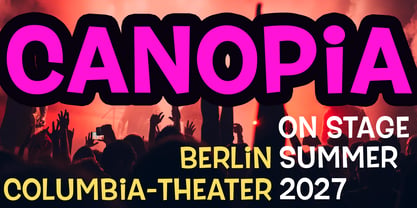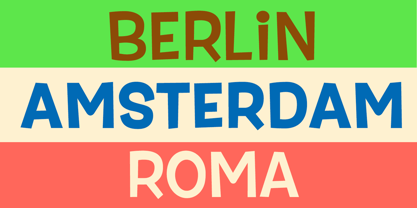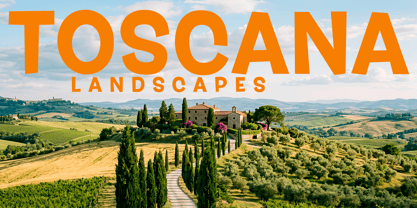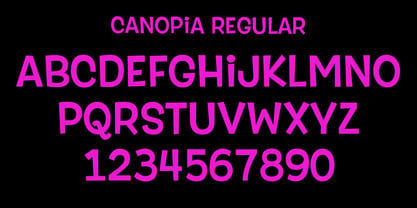
Canopia
The Canopia Font Family was designed by Wolfram Pleger and published by PleasureFonts. Canopia contains 2 styles and family package options.
Canopia is a hand-drawn, chunky font family with some grotesque retro sans serif touches. The imperfections of the terminals make for a loose yet legible font. The stems of the letters do not run parallel, but become thicker or thinner towards the top and bottom. All cross strokes and ounces of individual letters are unusually deep below the center line. A special distinguishing feature is the letter I, which is shaped like a lowercase letter with a dot. Canopia is available in 2 variants - as a regular style and as a bold style.